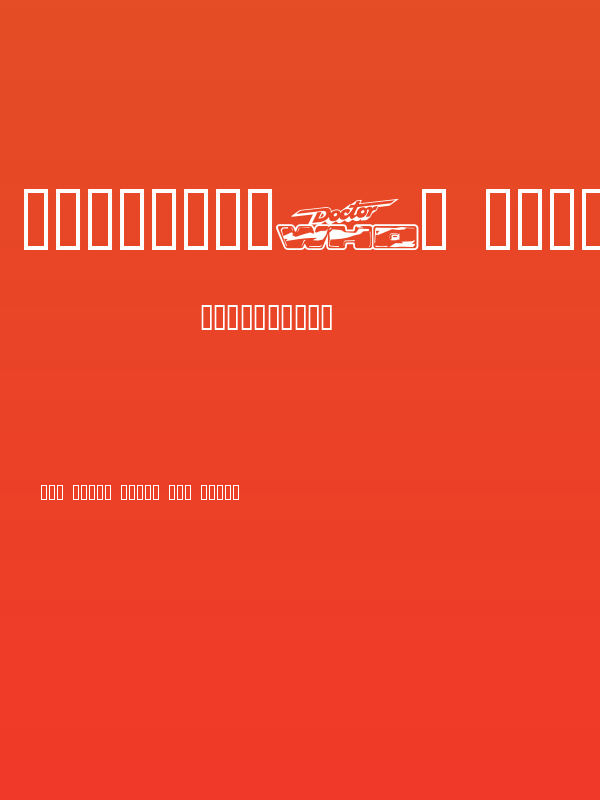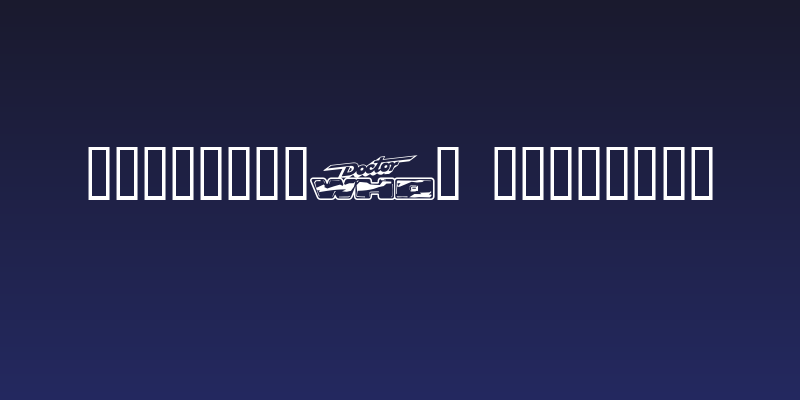
ThetaSigma Release2 Font
ThetaSigma Release2 Description
A decorative font featuring a unique, futuristic design with angular and geometric elements, reminiscent of science fiction themes.
| Overall Style | Futuristic, Decorative |
| Use Case | Logos, Headlines |
| Proposed Projects | Science fiction posters, themed event invitations, branding for futuristic products. |